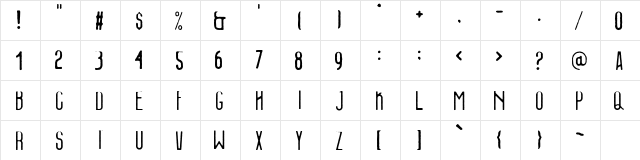
Naonweh Rough Regular
Design Context for Naonweh Rough Typeface
Naonweh Rough embraces imperfection — its rough, textured character adds raw authenticity to designs that want to feel lived-in and unconventional.
A strong fit for alternative music projects, graffiti-adjacent design, and anything that deliberately resists polish.
Pro Tip: Use Naonweh Rough at larger sizes where the texture and irregularity of each letterform can be clearly seen — it loses its character at small sizes.